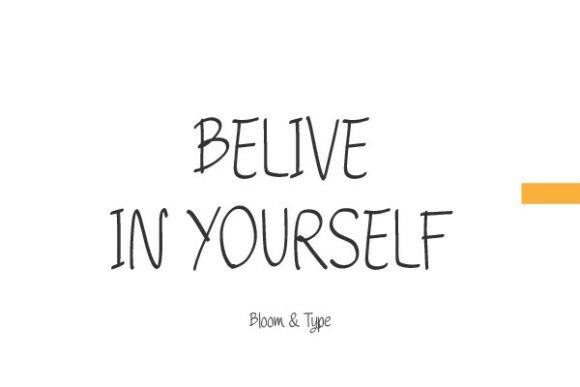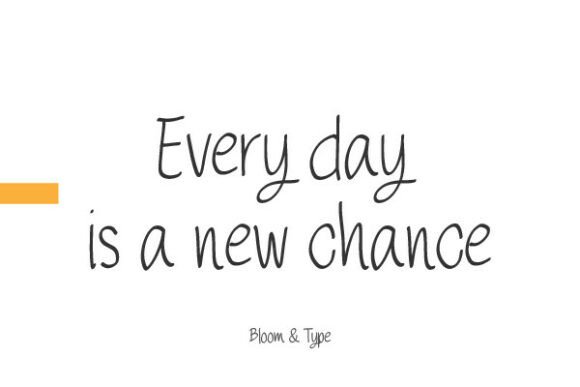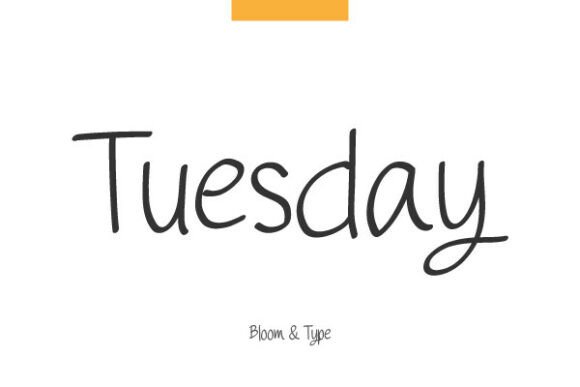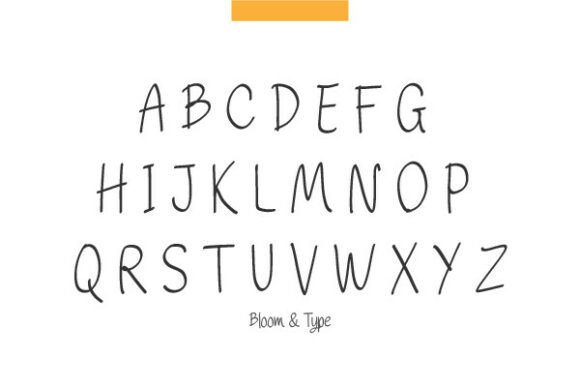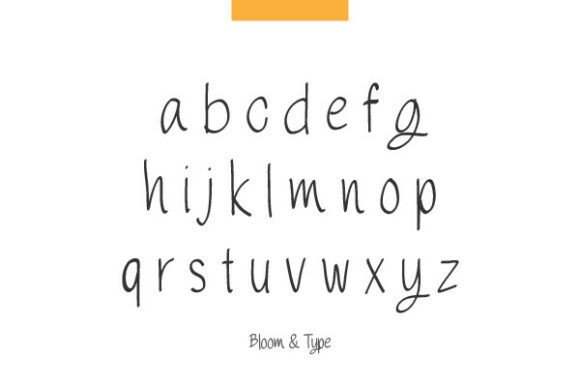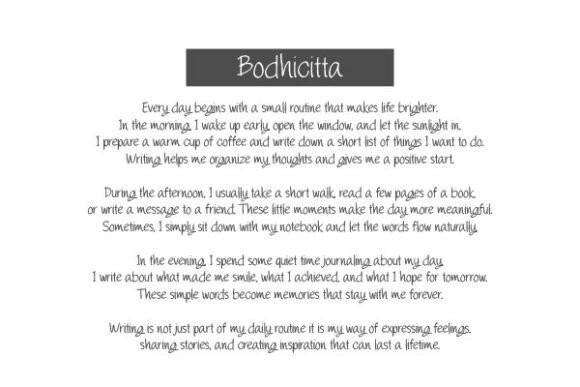
Bodhicitta Font: Embodying Simplicity and Mindfulness in Design
In the world of typography, fonts play a crucial role in conveying the tone and personality of a design. Among the numerous fonts available, Bodhicitta stands out for its unique blend of simplicity, mindfulness, and elegance. This refined handwritten font has gained popularity among designers and crafters for its ability to add a personal yet professional touch to various projects. In this article, we’ll explore the features and benefits of Bodhicitta font, and how it can elevate your creative work.
The Essence of Bodhicitta Font
Bodhicitta font is a handwritten typeface that exudes calmness and serenity. Its clean strokes and natural flow create a sense of harmony, making it perfect for designs that require a touch of elegance and sophistication. The font’s simplicity is its strength, allowing it to seamlessly blend with both modern and traditional designs. Whether you’re working on a branding project, social media graphics, packaging, or inspirational quotes, Bodhicitta font provides a versatile and charming solution.
Key Features of Bodhicitta Font
- Handwritten style: Bodhicitta font boasts a genuine handwritten style that adds authenticity and warmth to your designs.
- Clean strokes: The font’s clean strokes and natural flow create a sense of calmness and elegance.
- Versatility: Bodhicitta font is suitable for a wide range of projects, from branding and social media to packaging and inspirational quotes.
- Timeless beauty: The font’s classic and refined design ensures that your work will remain timeless and relevant.
Benefits of Using Bodhicitta Font
Bodhicitta font offers several benefits to designers and crafters. Its unique features make it an ideal choice for projects that require a personal yet professional touch. Some of the benefits include:
- Emotional connection: The font’s handwritten style and natural flow create an emotional connection with your audience.
- Elegance and sophistication: Bodhicitta font adds a touch of elegance and sophistication to your designs.
- Flexibility: The font is suitable for various design projects, allowing you to experiment with different styles and formats.
- Timeless appeal: Bodhicitta font’s classic design ensures that your work will remain relevant and timeless.
Design Applications of Bodhicitta Font
Bodhicitta font is a versatile typeface that can be used in various design applications. Some of the most popular uses include:
- Branding: The font’s elegant and sophisticated design makes it perfect for branding projects, such as logos, business cards, and letterheads.
- Social media: Bodhicitta font is ideal for social media graphics, including Facebook posts, Instagram stories, and Twitter headers.
- Packaging: The font’s clean strokes and natural flow make it suitable for packaging designs, such as labels, tags, and product descriptions.
- Inspirational quotes: Bodhicitta font is perfect for inspirational quotes, adding a touch of elegance and sophistication to your designs.
Tips for Using Bodhicitta Font
To get the most out of Bodhicitta font, here are some tips to keep in mind:
- Experiment with colors: Try pairing Bodhicitta font with different colors to create a unique and eye-catching design.
- Play with font sizes: Experiment with different font sizes to create visual hierarchy and add emphasis to your design.
- Mix with other fonts: Bodhicitta font can be paired with other fonts to create a unique and interesting design.
- Keep it simple: Remember that Bodhicitta font is a simple and elegant typeface, so keep your design simple and uncluttered.
| Author | Bloom & Type |
Bodhicitta font is a refined handwritten typeface that embodies simplicity, mindfulness, and elegance. Its clean strokes and natural flow create a sense of calmness and serenity, making it perfect for both modern and traditional designs. With its versatility and charm, Bodhicitta font is an ideal choice for designers and crafters looking to add a personal yet professional touch to their projects. Whether you’re working on branding, social media, packaging, or inspirational quotes, Bodhicitta font is sure to elevate your creative work with timeless beauty.